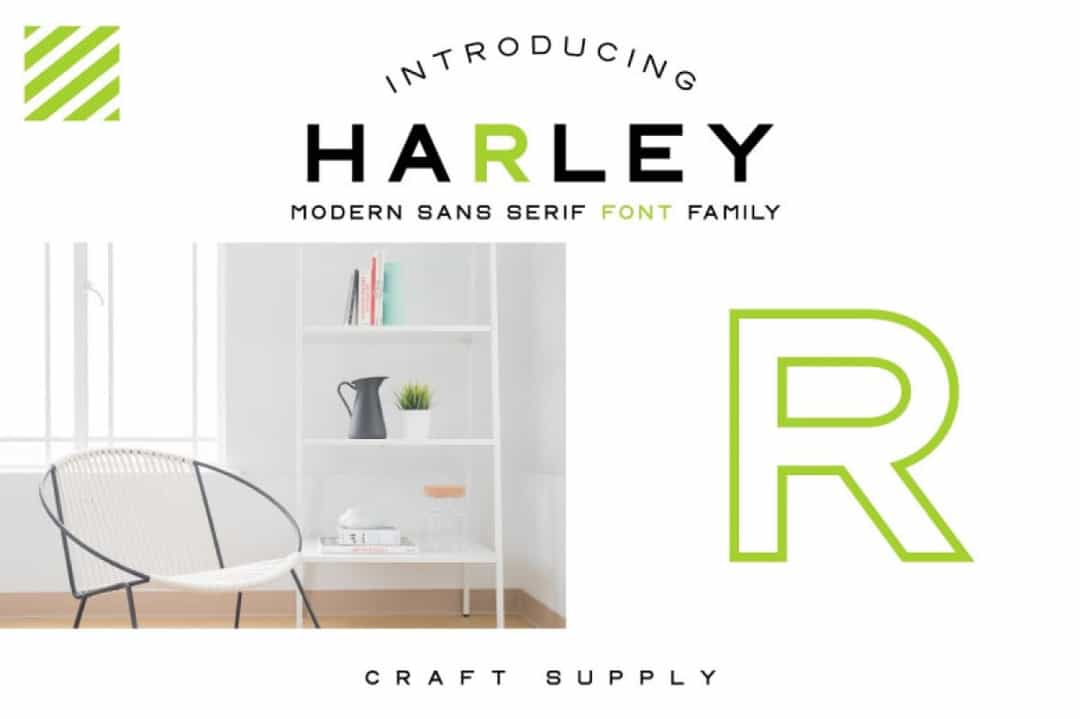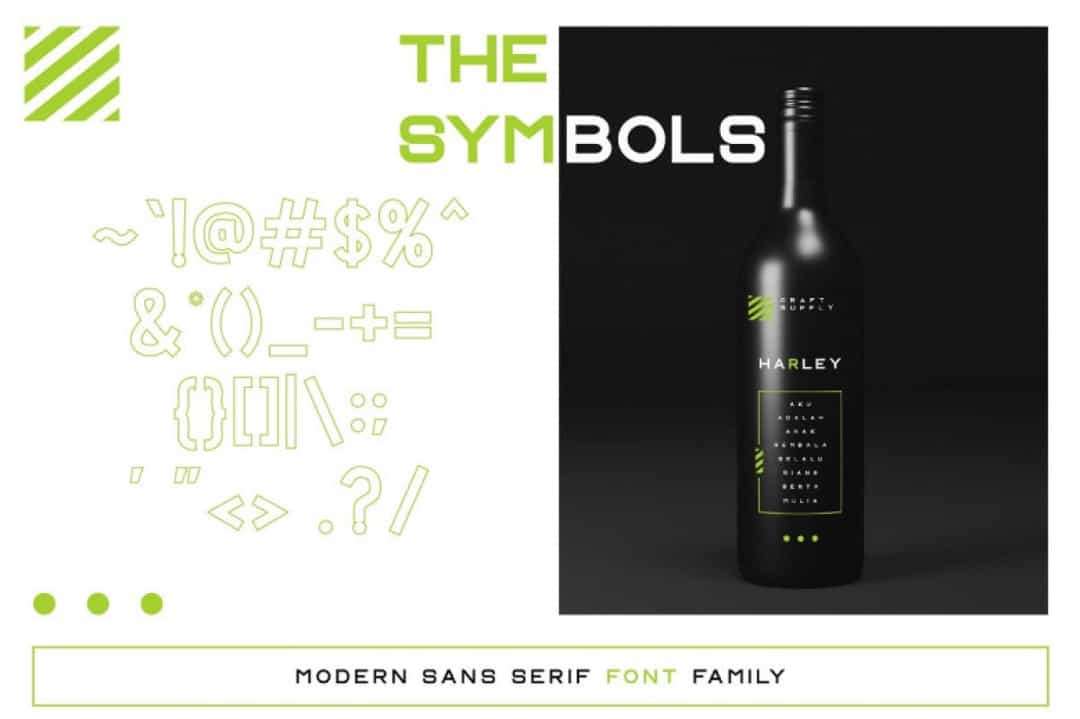
Introduced is the CS Harley Sans Serif Font Family which comes complete with two styles and three weight fonts for designing poster, headings, letterhead merchandise logos t-shirts banners magazines etc. Have a design project in mind for cards for greetings or packaging design, an identity for your brand, crafting design or DIY project such as book titles wedding fonts pop modern design retro style design?